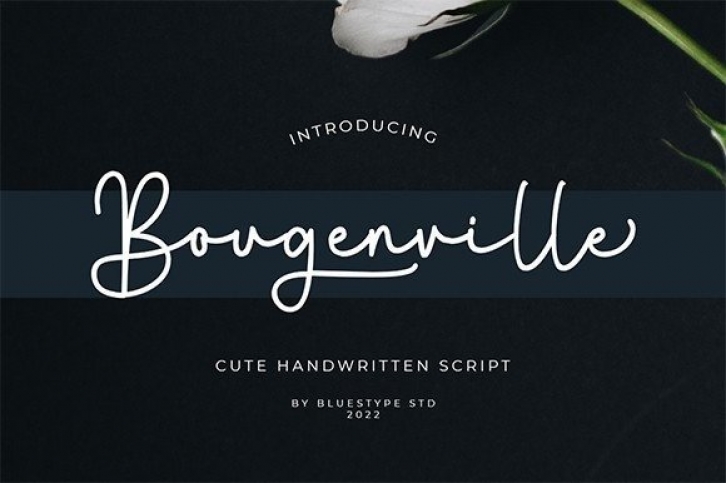
Bougenville is a beautiful handwritten font with a refined and classy look. Not too thin and not too thick, balanced and varied, this font was designed to enhance the beauty of your projects. This font is suitable for use on branding, weddings, product design, logos, magazines, quotes, fashion, photography watermarks, social media posts, invitations, signatures, logos, and many more!
This font is PUA encoded, which means you can access all of the glyphs and swashes with ease!